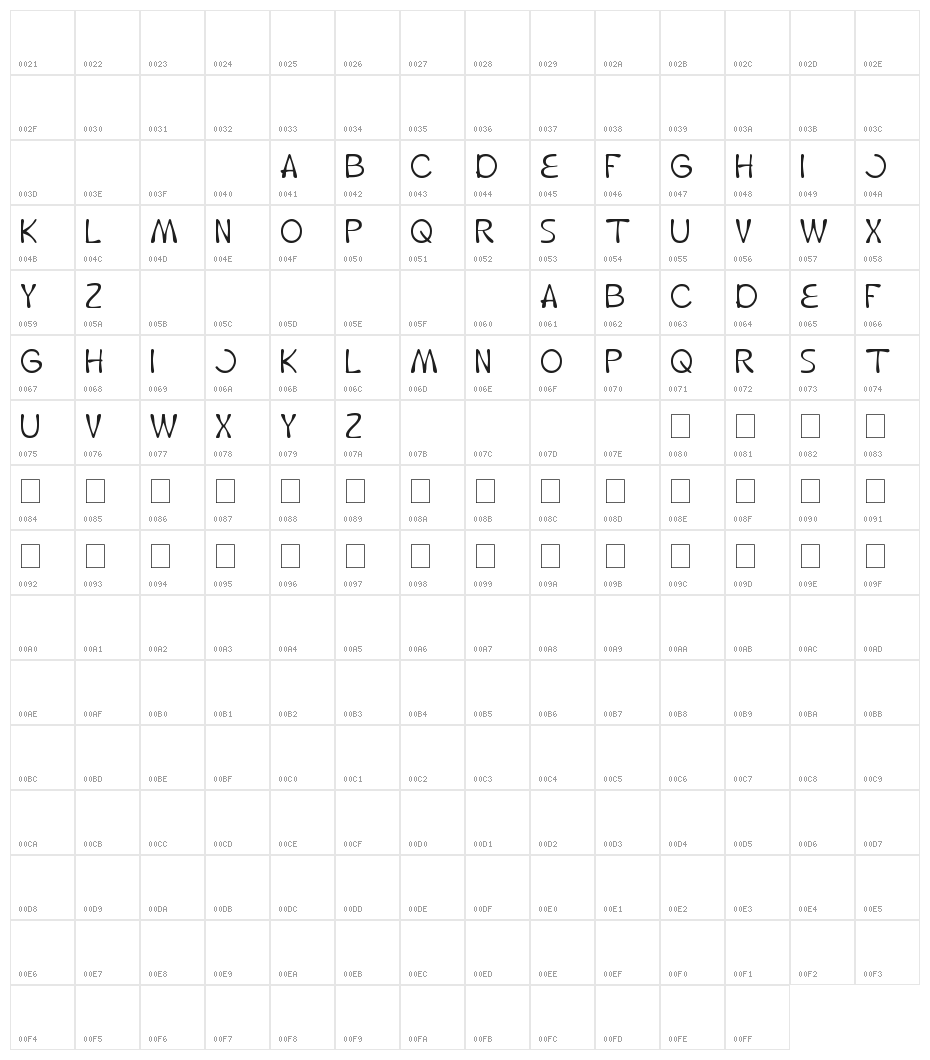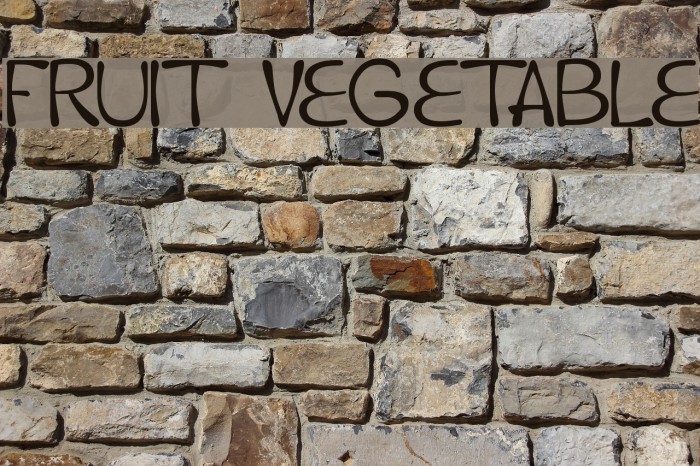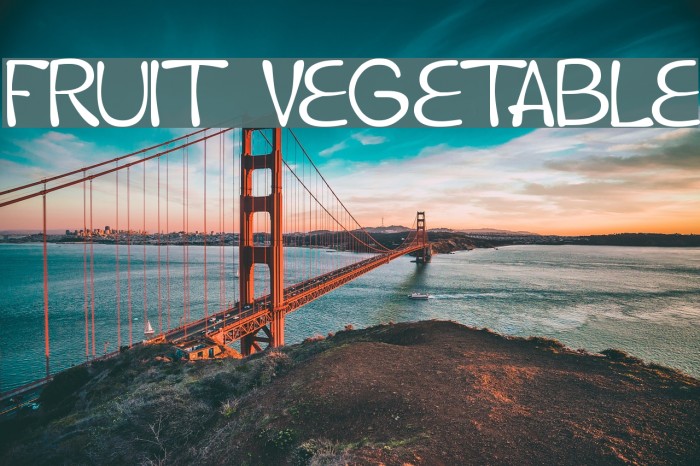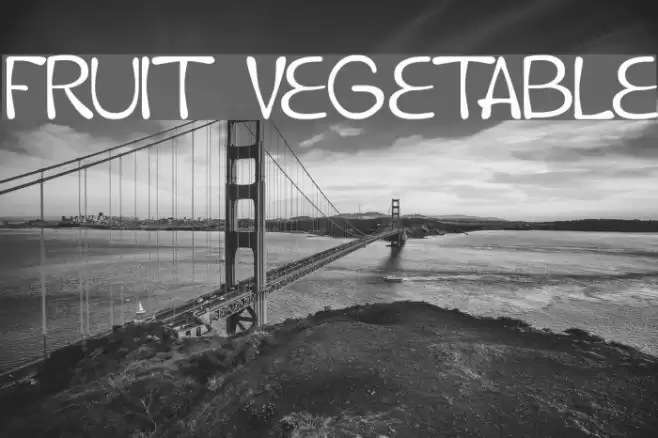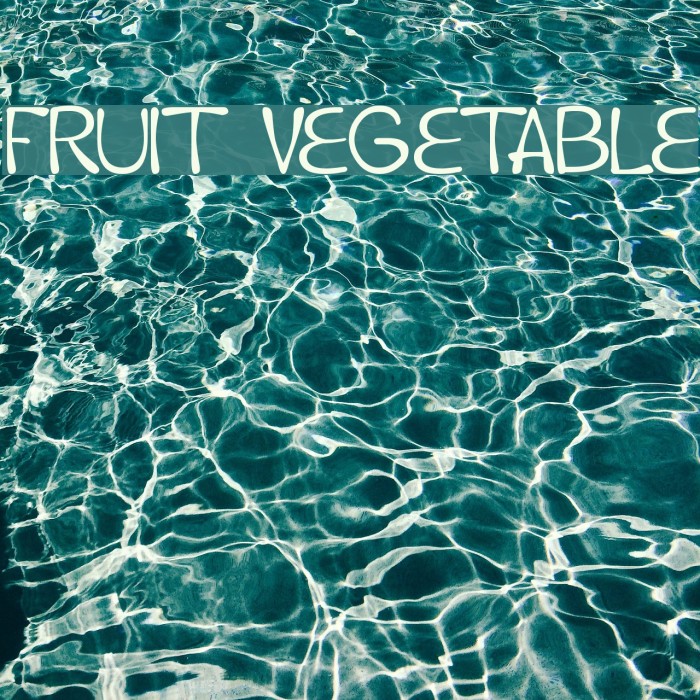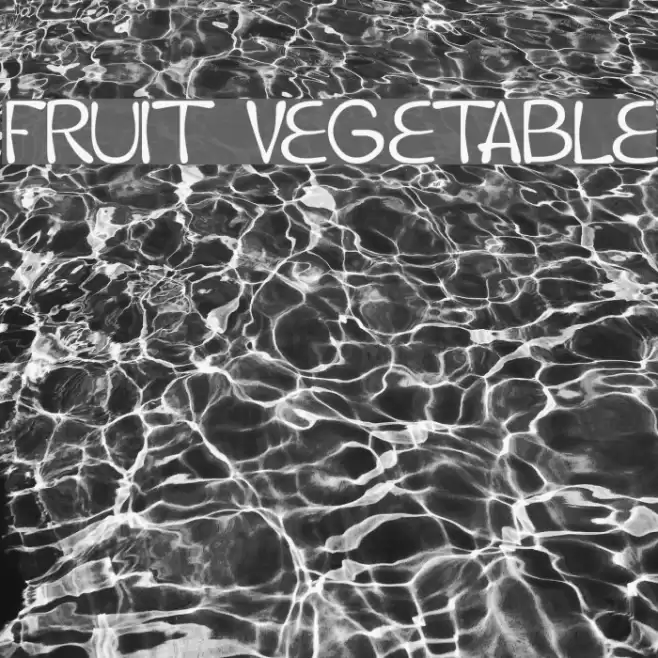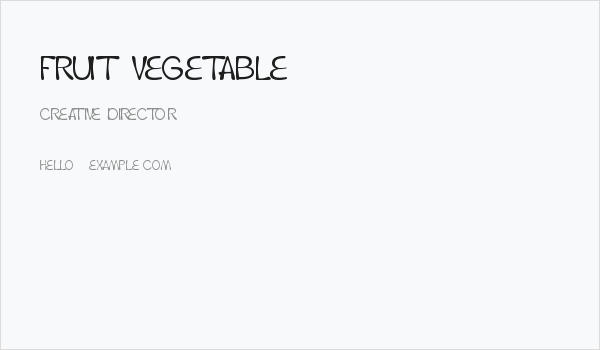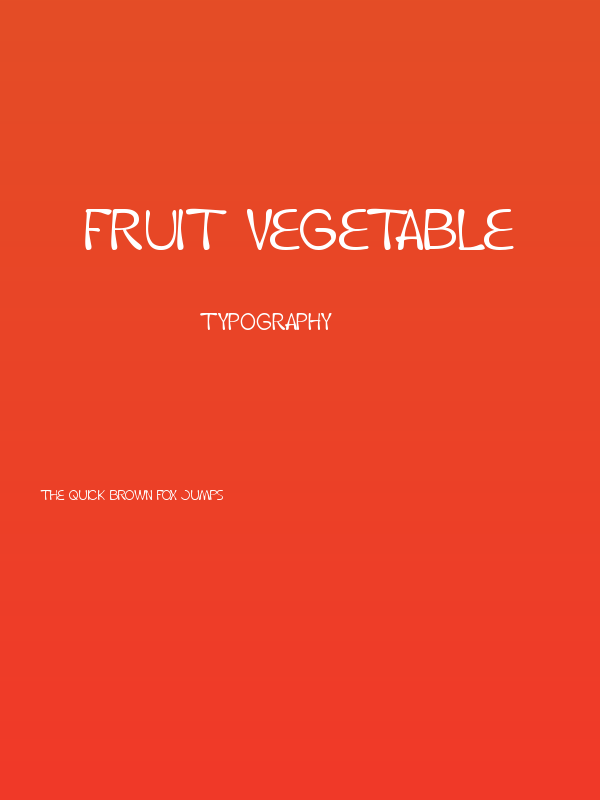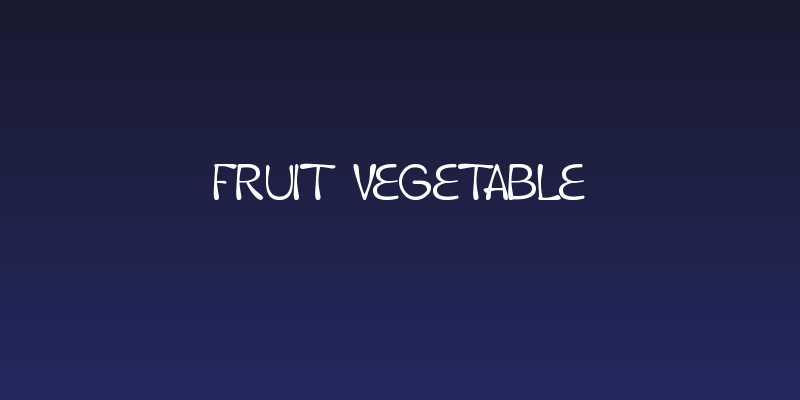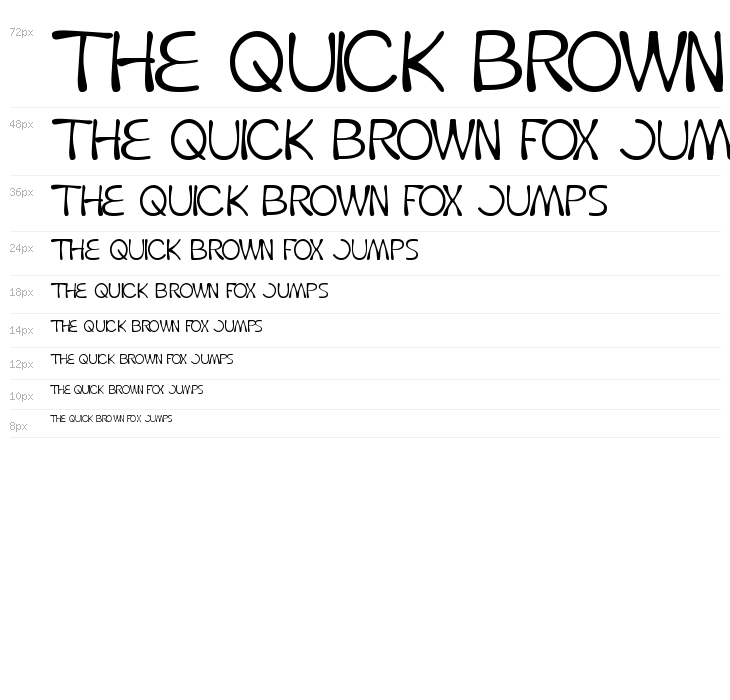
fruit vegetable Font
fruit vegetable Description
This playful and whimsical font features a handwritten style with a casual and friendly appearance. The letters are slightly irregular, giving it a natural and organic feel. The strokes are smooth and rounded, with a consistent thickness throughout, which adds to its approachable and informal character. The font maintains a good balance between readability and style, making it suitable for various creative projects. Its unique charm lies in the subtle variations in each letter, which mimic the imperfections of hand-drawn text, adding a personal touch to any design.
Overall StylePlayful
Use CaseLogos, Headlines, Casual text
Proposed ProjectsIdeal for children's books, playful branding, greeting cards, and casual invitations.